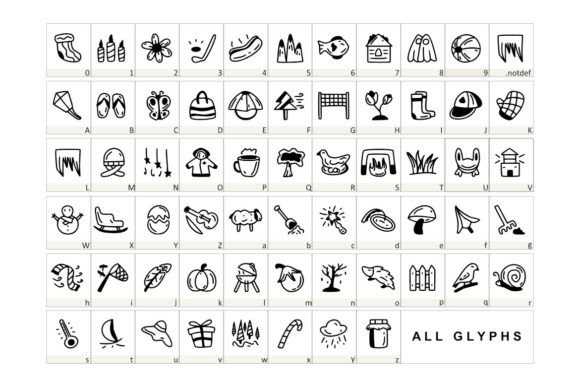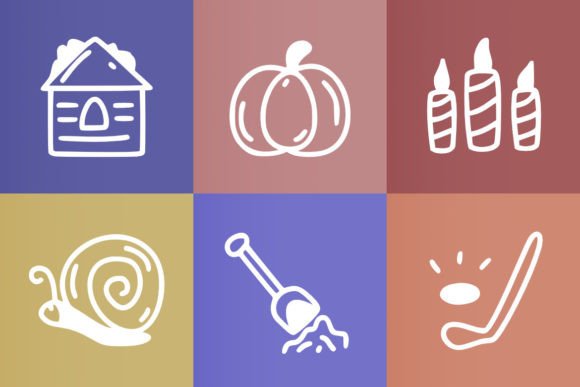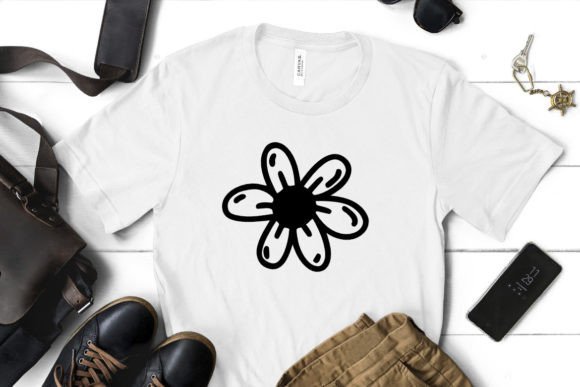
Adding a Touch of Joy to Your Designs
Do you ever find yourself stuck in a creative rut, scrolling through fonts in search of the perfect one to bring your project to life? It’s a feeling we’ve all been there, right? One moment, you’re staring blankly at a blank canvas, and the next, you stumble upon the perfect font that makes everything click.
That’s exactly what happened when designers discovered the Cheerful Font – a delightful dingbats font that’s as cute as it is useful. With its playful charm, Cheerful Font is perfect for a wide range of projects, from stickers and posters to t-shirts and apparel graphics. Whether you’re a seasoned designer or a beginner, this font is sure to bring a smile to your face and a touch of joy to your designs.
Cheerful Font Key Features
- Unique Characteristics: Cheerful Font features a distinctive, hand-drawn style with a mix of bold and delicate lines, creating a visually appealing contrast.
- Scalability: Cheerful Font is designed to be highly scalable, maintaining its legibility and aesthetic appeal even at small font sizes.
Designer Review: Cheerful Font
Overall, I’m quite pleased with the Cheerful Font! It has a certain charm that’s perfect for creating playful and upbeat designs. ✨ The font’s unique letterforms and irregularities give it a handmade feel that’s both whimsical and captivating. The font’s personality shines through in its use of rounded edges and flowing curves, making it an excellent choice for designs that require a sense of friendliness and approachability.
However, there are some limitations to consider. ✨ The font’s irregularities can sometimes make it difficult to read, particularly in smaller text sizes. Additionally, the font’s unique style may not be suitable for all design projects, as it can come across as too playful or childish. ⚠️ Furthermore, the font’s limited character set and lack of language support may be a hindrance for designers who need to work with multiple languages.
- Unique, handmade feel
- Perfect for playful and upbeat designs
- Rounded edges and flowing curves
- May be difficult to read in smaller text sizes
- Limited character set and language support
Practical Application Guide for Cheerful Font
For the most effective use of Cheerful Font, use it for headings and titles to add a touch of whimsy and playfulness. It’s also suitable for social media graphics, children’s materials, and party invitations.
Carolyna Pro is a elegant, serif font that is perfect for creating a sophisticated and luxurious atmosphere. It is ideal for use in high-end branding, packaging, and editorial design. Compared to Cheerful Font, Carolyna Pro has a more refined and polished feel, making it suitable for use in formal contexts and high-end applications.
Q: Can I customize the Cheerful Font to fit my specific design needs?
Yes, the Cheerful Font is a highly customizable font that allows you to adjust various parameters, such as font size, line height, and letter spacing. You can also use font editing software to modify the font’s design and create custom variations.